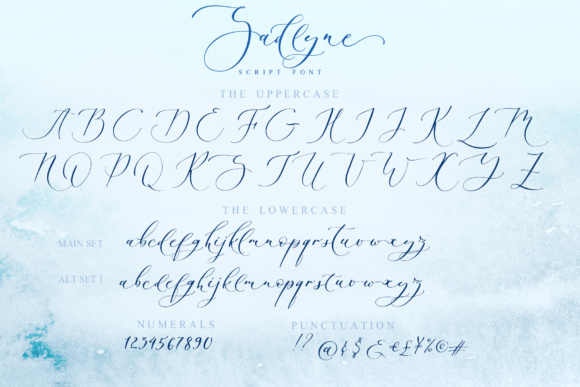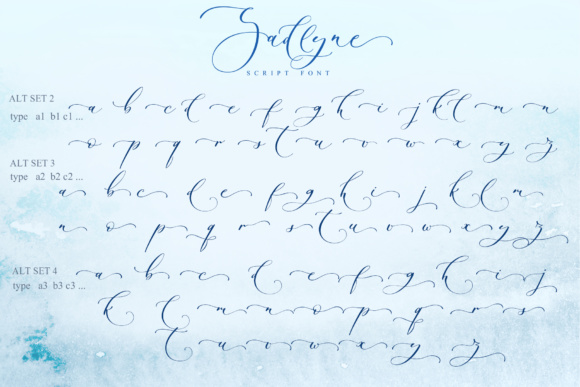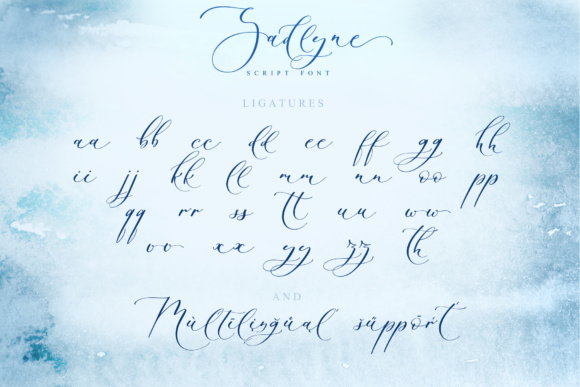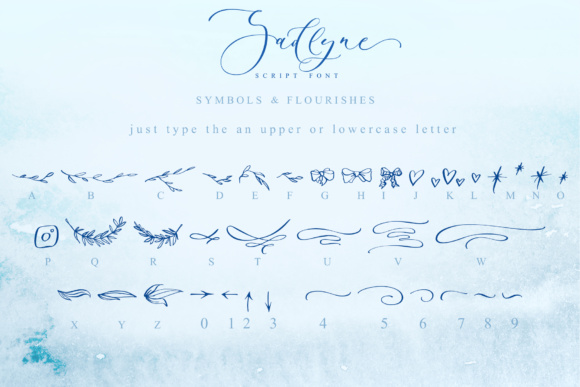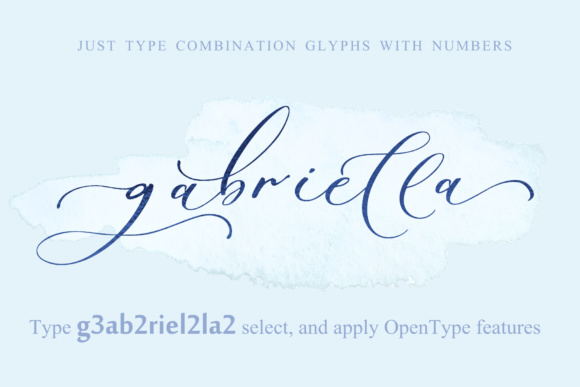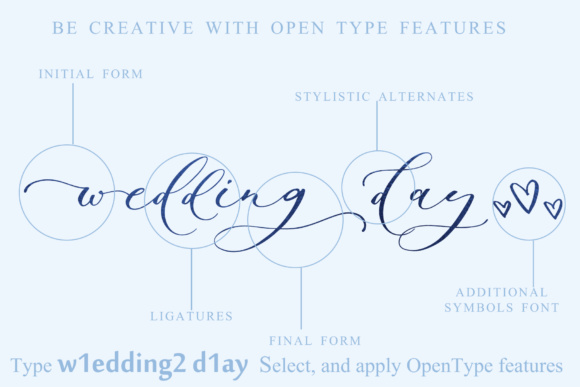
Introduction to Sadlyne Font Font
Fonts play a crucial role in design, and the Sadlyne Font font is a typeface that brings both character and versatility to any project. Whether you’re working on a branding project, a website, or a print design, the Sadlyne Font font offers a unique style that can elevate your work.
Sadlyne is a handwritten, elegant, calligraphic typeface.
Sadlyne Symbols is a font with over 36 hand-drawn elements, illustrations, and swashes and can help to make your design more original Combine and arrange swashes and illustrations to create your own designs and make borders, frames, dividers, logos and more.
Key Features of Sadlyne Font Font
Why Choose Sadlyne Font Font?
The Sadlyne Font font is more than just a typeface – it’s a design tool that helps you communicate your message with style and clarity. Its unique character set and versatile design make it suitable for a wide range of applications, from elegant invitations to bold headlines.
With its carefully crafted letterforms and balanced proportions, the Sadlyne Font font ensures readability and visual appeal across all mediums.
What makes Sadlyne Font font special?
The Sadlyne Font font stands out with its unique design, exceptional readability, and versatility across various design applications.